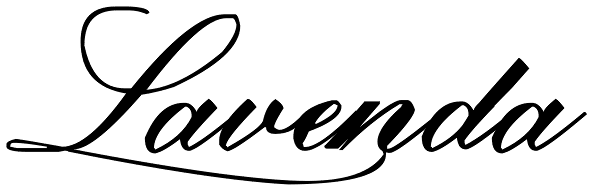
Lavenda
Lavenda font is a result of my two year classic calligraphy studies, and is based on my own handwriting. The overall look is classic, which makes it a match for invitations, place cards or other paper goods where old time elegance is required. With...